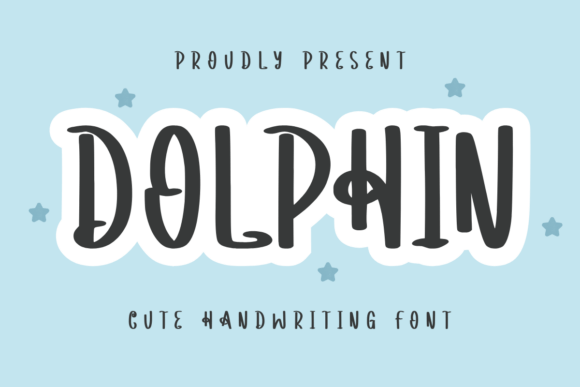
Dolphin Font: Add a Playful Touch to Your Creative Projects
Are you looking for a font that can bring a smile to your audience’s face? Look no further than the Dolphin Font! This adorable handwritten font is perfect for children’s projects, fun crafting ideas, and any creative work that needs a playful touch. With its quirky curves and cheerful style, Dolphin adds a joyful splash to your designs.
What is Dolphin Font?
Dolphin Font is a cute and playful handwritten font designed to evoke a sense of fun and playfulness. Its unique and quirky curves make it perfect for creative projects that need a personal touch. The font is highly legible and can be used for a variety of purposes, from children’s books and educational materials to craft projects and DIY tutorials.
Characteristics of Dolphin Font
- Cute and Playful: Dolphin Font is designed to be fun and engaging, making it perfect for projects that require a playful touch.
- Handwritten: The font has a handwritten feel, giving it a personal and unique touch.
- Quirky Curves: The font features quirky curves and irregularities that add to its playful charm.
- Cheerful Style: Dolphin Font has a cheerful style that is sure to bring a smile to your audience’s face.
- Highly Legible: Despite its playful nature, Dolphin Font is highly legible and easy to read.
Uses of Dolphin Font
Dolphin Font is a versatile font that can be used for a variety of creative projects, including:
- Children’s Books: The font is perfect for children’s books, educational materials, and activity sheets.
- Craft Projects: Dolphin Font can be used for craft projects, such as making cards, gift tags, and other DIY crafts.
- Fun Party Decor: The font can be used to create fun and playful party decorations, such as banners, garlands, and signs.
- Social Media Graphics: Dolphin Font can be used to create engaging social media graphics, such as quote graphics and promotional images.
Tips for Using Dolphin Font
Here are some tips for using Dolphin Font in your creative projects:
- Pair with Other Fonts: Pair Dolphin Font with other fonts to create a unique and interesting contrast.
- Use Bright Colors: Use bright and cheerful colors to match the playful style of the font.
- Experiment with Sizes: Experiment with different font sizes to create visual interest and hierarchy.
- Add Graphics: Add graphics and illustrations to enhance the playful style of the font.
Dolphin Font is a playful and adorable handwritten font that is perfect for creative projects that need a fun and playful touch. With its quirky curves and cheerful style, Dolphin adds a joyful splash to your designs. Whether you’re working on a children’s book, craft project, or social media graphic, Dolphin Font is sure to bring a smile to your audience’s face.